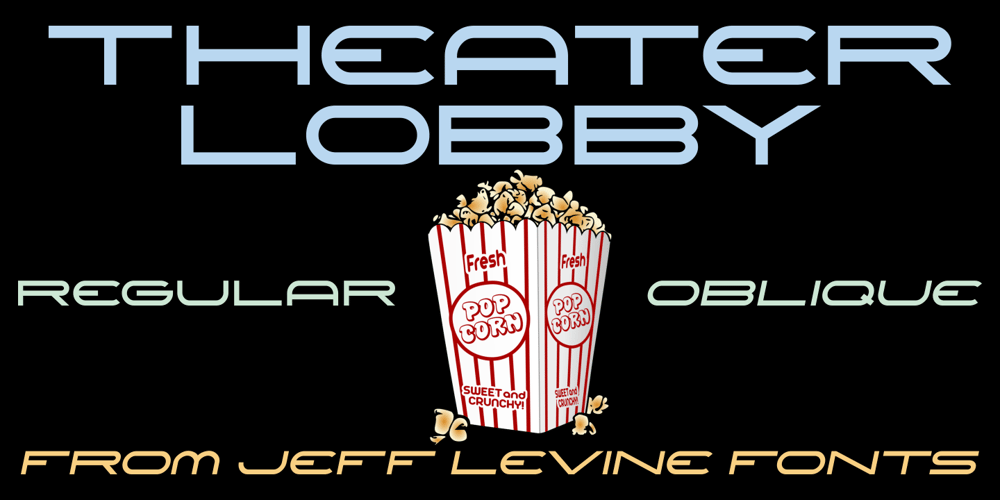
Theater Lobby JNL
Theater Lobby JNL Font Family was designed by Jeff Levine and published by Jeff Levine. Theater Lobby JNL contains 2 styles and family package options. A vintage photo (circa 1950s) taken outside one of the movie houses owned at the time by Miami-based Wometco Theaters showed a small hand lettered sign with the word “Wometco” painted in a stylized Art Deco alphabet.This inspired Theater Lobby JNL, which is available in both regular and oblique versions.